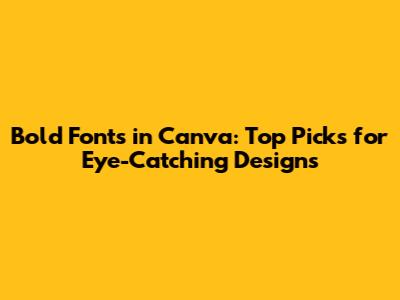
Hey guys! Are you looking to make your designs pop and grab attention? One of the easiest ways to do that is by using bold fonts. Canva has a fantastic selection of fonts, but finding the perfect bold one can sometimes feel like searching for a needle in a haystack. Don't worry, though! I'm here to give you the lowdown on some of the best bold fonts Canva has to offer. These fonts are not only stylish but also super effective at making your message clear and impactful. Let's dive in and explore these typography treasures!
Why Use Bold Fonts?
Before we jump into the specific fonts, let's quickly chat about why you should even bother with bold fonts in the first place. Bold fonts are your secret weapon for creating emphasis and hierarchy in your designs. They help you highlight important information, draw the viewer's eye to key elements, and generally make your text more readable. Think about it – when you're skimming a poster or social media graphic, what catches your attention first? Usually, it's the bold text that stands out from the crowd. In a world where attention spans are shorter than ever, using bold fonts effectively is crucial for getting your message across. Plus, bold fonts can add a touch of drama and personality to your designs. They can convey confidence, strength, and importance, depending on the font you choose. Whether you're designing a logo, a presentation, or a simple Instagram post, incorporating bold fonts strategically can take your visuals to the next level. So, next time you're working on a design, don't underestimate the power of a well-placed bold font!
Top Bold Font Recommendations in Canva
Alright, let's get to the fun part – the fonts themselves! I've curated a list of some of my absolute favorite bold fonts available in Canva. These fonts are versatile, readable, and perfect for a wide range of design projects. Get ready to take notes, because you're about to discover some typography gold!
1. Montserrat Bold
Montserrat Bold is a classic choice for a reason. It's clean, modern, and incredibly versatile. This font is part of the Montserrat family, which is known for its geometric sans-serif design. The bold version is particularly impactful, making it perfect for headlines, titles, and any text you want to stand out. What I love about Montserrat Bold is its legibility. Even at smaller sizes, it remains easy to read, which is crucial for ensuring your message gets across. Plus, it pairs well with a variety of other fonts, so you can easily incorporate it into your existing design schemes. Whether you're creating a professional presentation or a trendy social media graphic, Montserrat Bold is a reliable choice that won't let you down. Trust me, you'll find yourself reaching for this font again and again.
2. Bebas Neue Bold
If you're looking for a font that's tall, narrow, and attention-grabbing, Bebas Neue Bold is the way to go. This font has a distinctive modern feel that's perfect for headlines, posters, and anything that needs to make a statement. Bebas Neue Bold is incredibly popular in the design world, and for good reason. Its clean lines and bold weight command attention without being too overwhelming. It's a fantastic choice for designs that need to feel contemporary and stylish. One thing to keep in mind is that Bebas Neue Bold is best used for shorter blocks of text, as its narrow width can become tiring to read in large paragraphs. But for headlines, subheadings, and call-to-actions, it's an absolute winner. Give it a try and see how it can transform your designs!
3. Oswald Bold
Oswald Bold is another fantastic sans-serif option that's perfect for adding a touch of modernity to your designs. This font is slightly condensed, giving it a sleek and sophisticated look. Oswald Bold is particularly well-suited for headlines and titles, but it also works well for body text if you need a bit more emphasis. One of the things I appreciate about Oswald Bold is its versatility. It can be used in a wide range of design projects, from website headers to print materials. Plus, it pairs beautifully with both serif and sans-serif fonts, giving you plenty of creative flexibility. If you're looking for a font that's both stylish and functional, Oswald Bold is definitely worth checking out.
4. Impact
Let's talk about a classic – Impact. This font is practically synonymous with boldness. It's heavy, condensed, and impossible to ignore. Impact is a go-to choice for headlines, posters, and anything that needs to grab attention immediately. While it might not be the most subtle font on the list, it's undeniably effective. Impact is perfect for designs that need to be loud and assertive. Think about protest signs, event posters, or social media graphics that need to cut through the noise. Just be careful not to overuse it, as its intensity can become overwhelming if it's not used sparingly. But when used correctly, Impact can be a powerful tool in your design arsenal.
5. Anton
Anton is a sans-serif typeface that exudes modernity and strength. Its bold, condensed form makes it perfect for headlines, logos, and designs where you want to make a statement. What sets Anton apart is its slightly rounded corners, which give it a friendly and approachable feel despite its boldness. This font is highly readable and works well in both print and digital formats. If you're aiming for a design that's both contemporary and impactful, Anton is an excellent choice. Its bold presence ensures your message is seen and remembered.
How to Use Bold Fonts Effectively
Now that you know some of the best bold fonts Canva has to offer, let's talk about how to use them effectively. It's not enough to just slap a bold font on your design and call it a day. To truly make an impact, you need to use bold fonts strategically and thoughtfully.
1. Create Hierarchy
One of the primary uses of bold fonts is to create hierarchy in your designs. Use bold text to highlight the most important information, such as headlines, subheadings, and key points. This will help guide the viewer's eye and make it easier for them to understand your message. Think of bold fonts as your visual guideposts, leading the way through your design.
2. Emphasize Key Words
Another effective way to use bold fonts is to emphasize specific words or phrases within your text. This can help draw attention to important details and make your message more memorable. Just be careful not to overdo it, as too much bold text can become overwhelming and lose its impact. Use it sparingly and strategically for maximum effect.